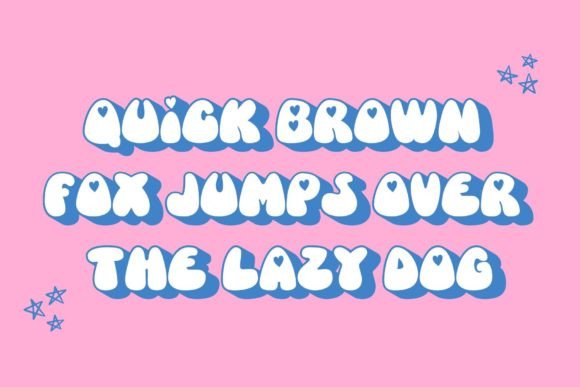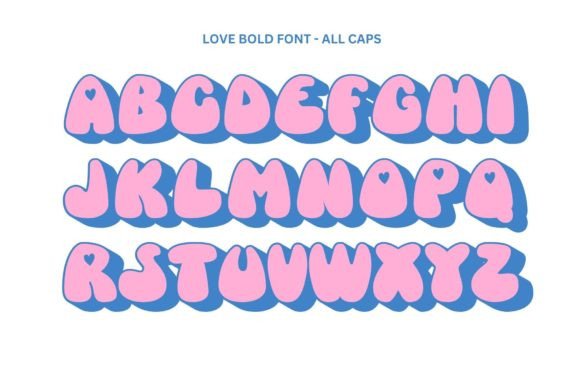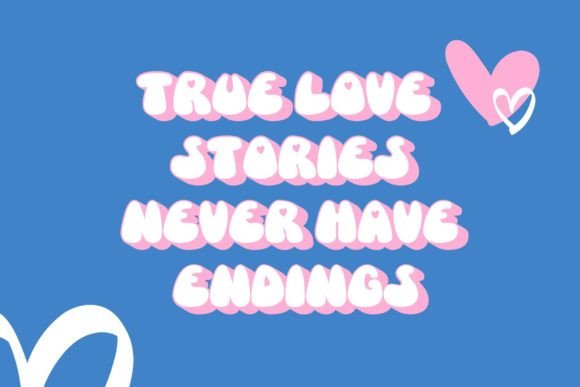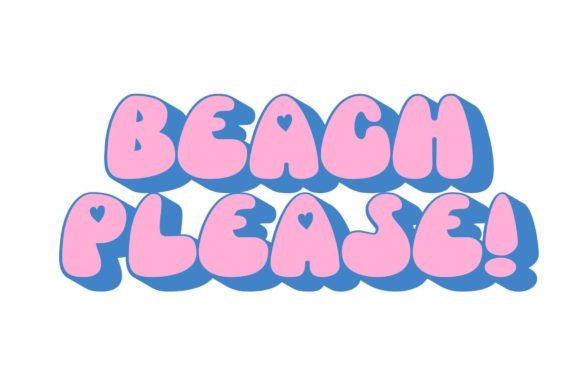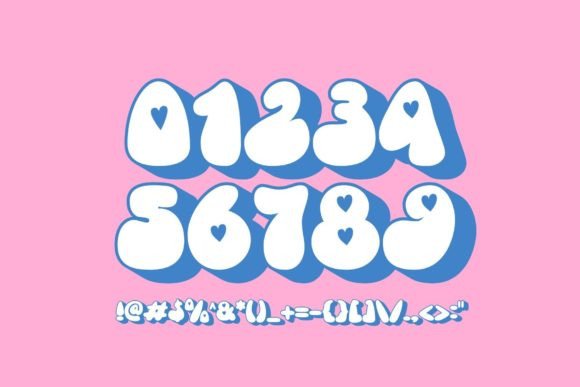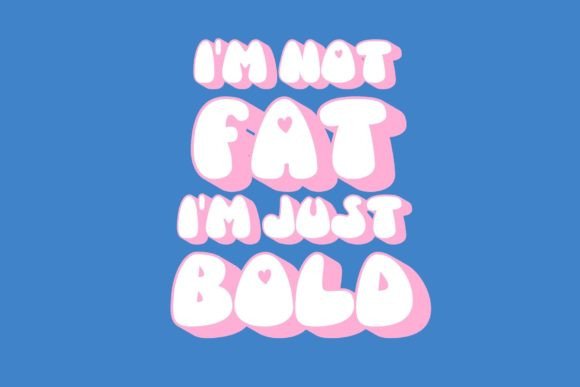
Introduction to Love Bold Font
Who hasn’t been stuck in a creative rut, desperately searching for that one font that sparks inspiration and sets the tone for a project? I know I have. It’s those moments when a font’s unique personality and charm can elevate a design from bland to grand. For designers, the perfect font can be the difference between a good project and a great one.
Enter Love Bold Font, our latest addition to the design resource family. This retro-style font is a masterclass in nostalgic charm, with its bold and playful design guaranteed to bring a smile to your face. Whether you’re working on a high-quality creative project or simply want to add some fun to your designs, Love Bold Font is the perfect companion.
About Love Bold Font
Key Features of Love Bold Font
- The font is designed with a unique, bold aesthetic, featuring a range of characters and glyphs.
- Love Bold Font is a versatile design resource that can be used for a range of creative projects, from branding and advertising to editorial and publishing.
Honest Review: Love Bold Font
I recently came across the Love Bold Font, and I’m excited to share my thoughts on this design resource. As a designer, I’m always on the lookout for high-quality fonts that can elevate my creative projects.
- ✨ High-quality design that’s perfect for modern projects
- ⚠️ Limited font styles available (only bold and regular)
- ⚠️ Not suitable for projects that require a large font size
Overall, I’m really impressed with the Love Bold Font. It’s a great addition to any designer’s toolkit, and I would definitely recommend it to anyone looking for a high-quality, free font. With a few tweaks to the font styles and sizes, it’s a game-changer for any creative project.
The Love Bold Font is a high-quality, free download perfect for adding a touch of elegance to your creative project. This font features a transparent background, making it easy to layer with other design elements.
Experiment with different font sizes and colors to create a visually appealing design. Combine the Love Bold Font with other design elements to add depth and interest.
The Love Bold Font is perfect for wedding invitations, social media graphics, and promotional materials. Its elegant design makes it ideal for any creative project that requires a touch of sophistication.